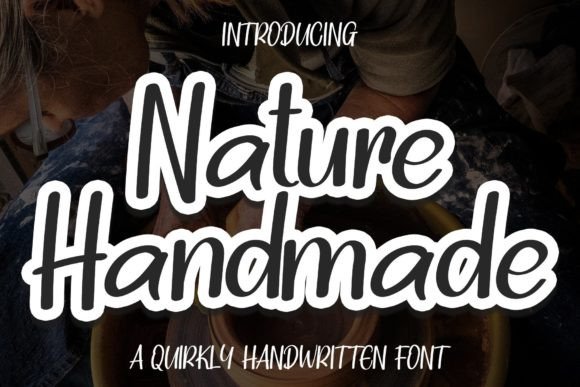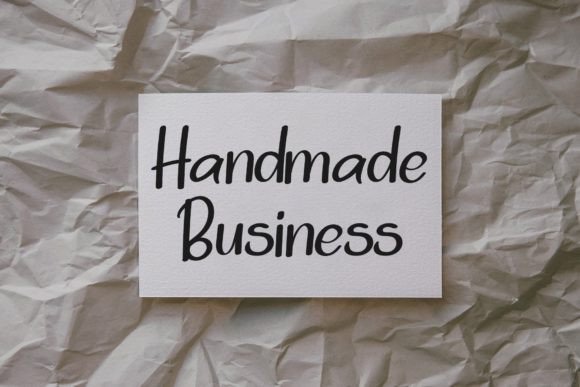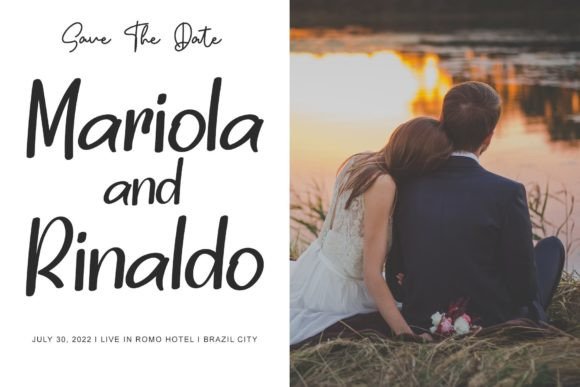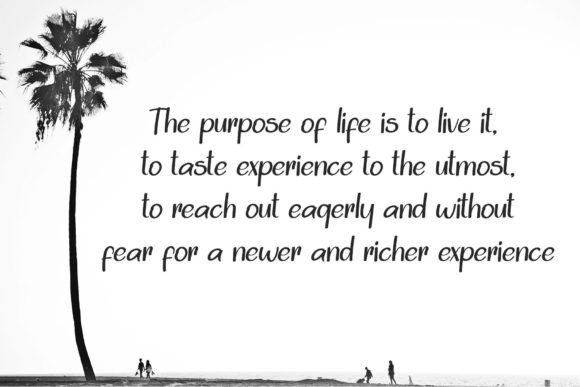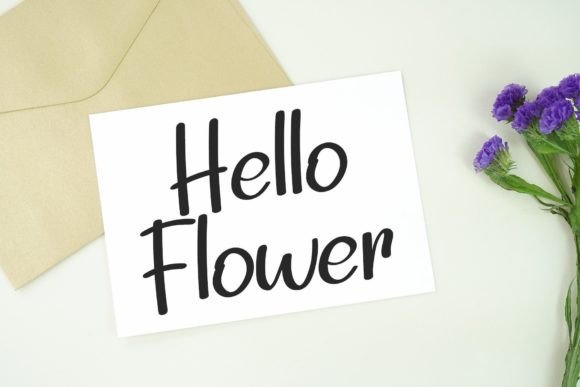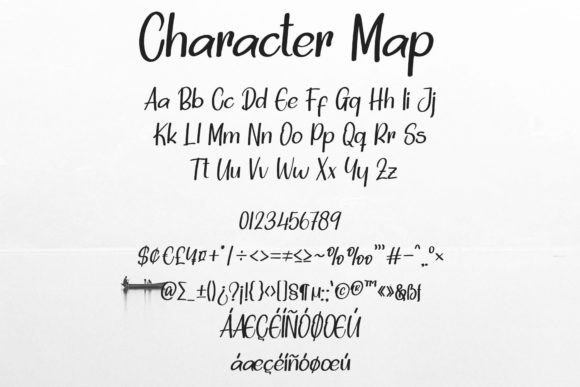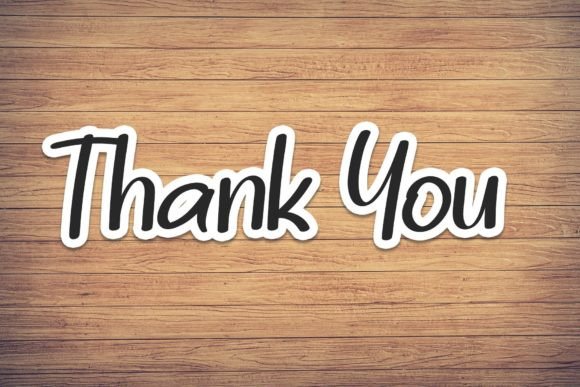
Nature Handmade Font
“Nature Handmade” is a captivating round lettered handwritten font designed for readability, intelligence, and style. Characterized by its smooth curves, this font is an excellent choice for fashion branding and editorial designs, where a touch of sophistication is key. By incorporating “Nature Handmade” into your projects, you can confidently enhance your designs, and the results will be nothing short of impressive.
The font’s rounded letters contribute to its approachable and friendly appearance, making it versatile for various applications. Whether you’re working on a fashion-oriented project, creating editorial layouts, or adding a stylish flair to your designs, “Nature Handmade” seamlessly adapts to your creative vision.
What sets “Nature Handmade” apart is its PUA encoding, or Private Use Area encoding. This feature allows you to effortlessly access a diverse range of incredible glyphs and ligatures, providing you with the tools to customize and personalize your designs. This added flexibility ensures that your projects can be as unique and expressive as your imagination allows.
The readability of “Nature Handmade” makes it a practical choice for a wide audience. Its smart and stylish aesthetic adds a level of sophistication to your work without compromising on accessibility. Whether your focus is on creating a cohesive and polished fashion brand or crafting visually appealing editorial designs, this font is a reliable companion.
Integrating “Nature Handmade” into your design workflow is a creative journey in itself. The font’s smooth curves and attention to detail make it a joy to work with, allowing you to effortlessly translate your ideas into visually stunning creations. The rounded letterforms create a harmonious flow, contributing to the overall balance and attractiveness of your designs.
In conclusion, “Nature Handmade” is not just a font; it’s a design asset that elevates your projects with its combination of readability, intelligence, and style. Whether you’re a seasoned designer or someone exploring the world of fashion and editorial design, “Nature Handmade” is a valuable tool that delivers both practicality and aesthetic appeal. Embrace the versatility of this font, confidently adding it to your projects, and witness the transformation of your designs into works of art.